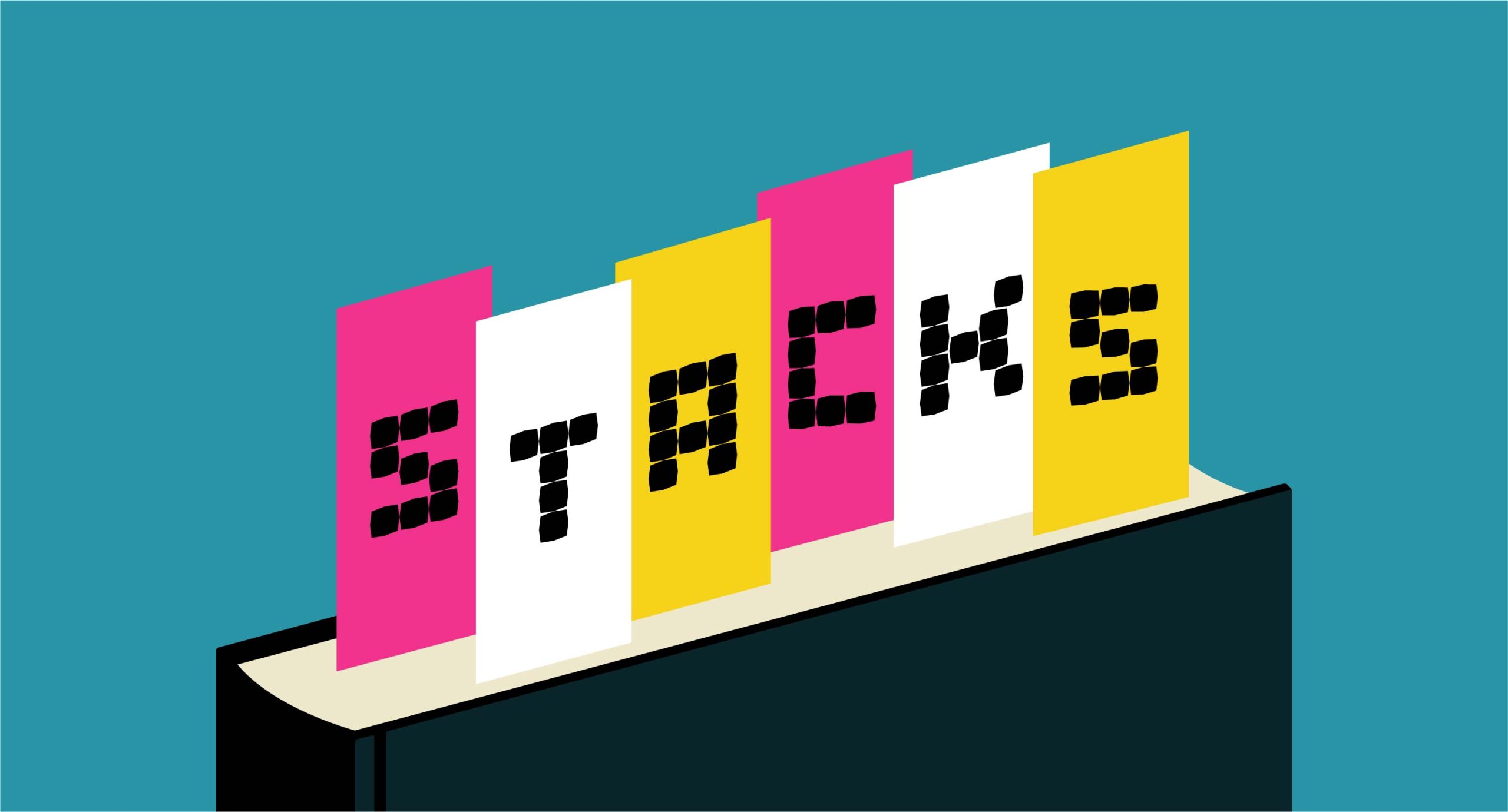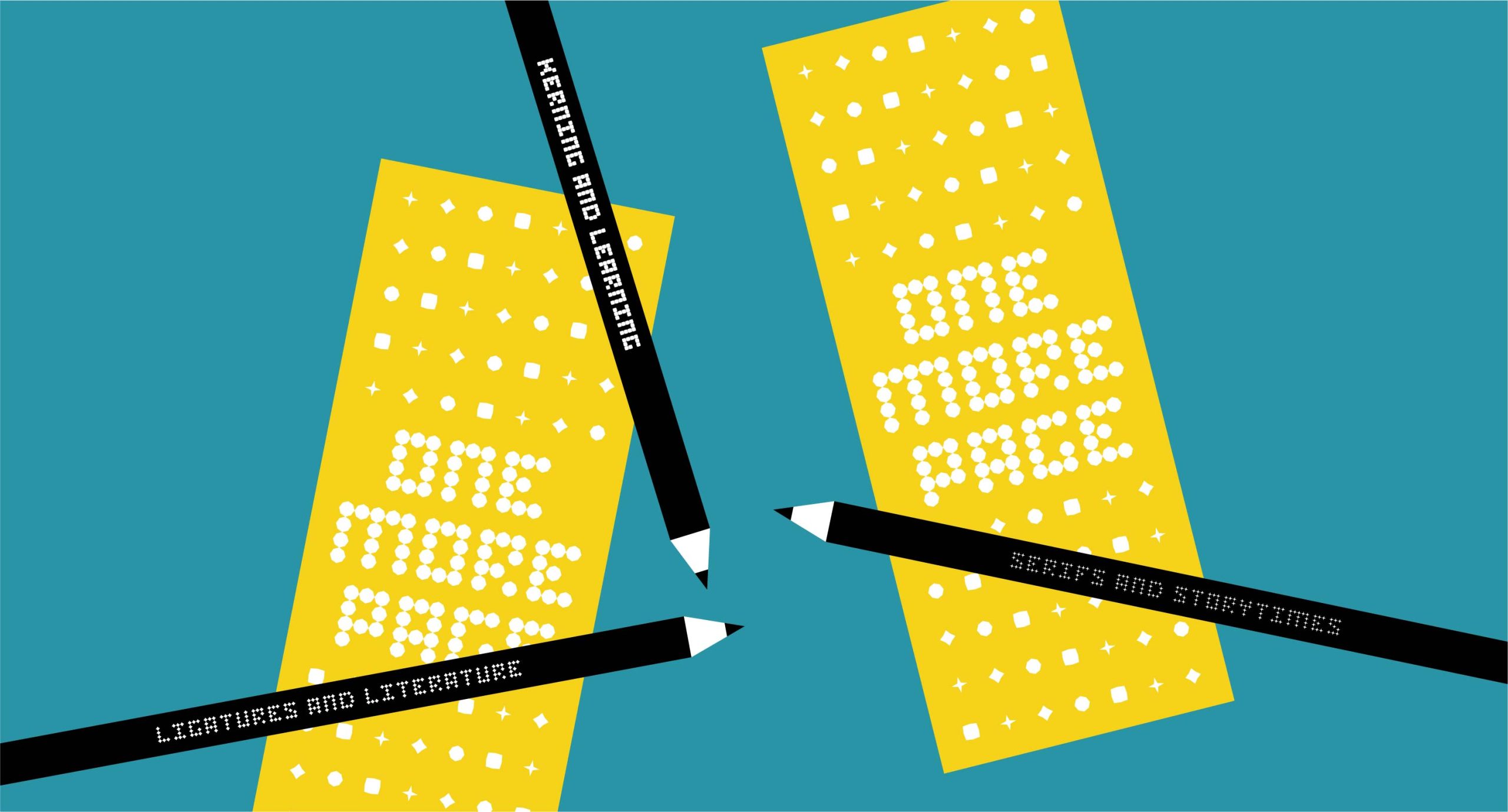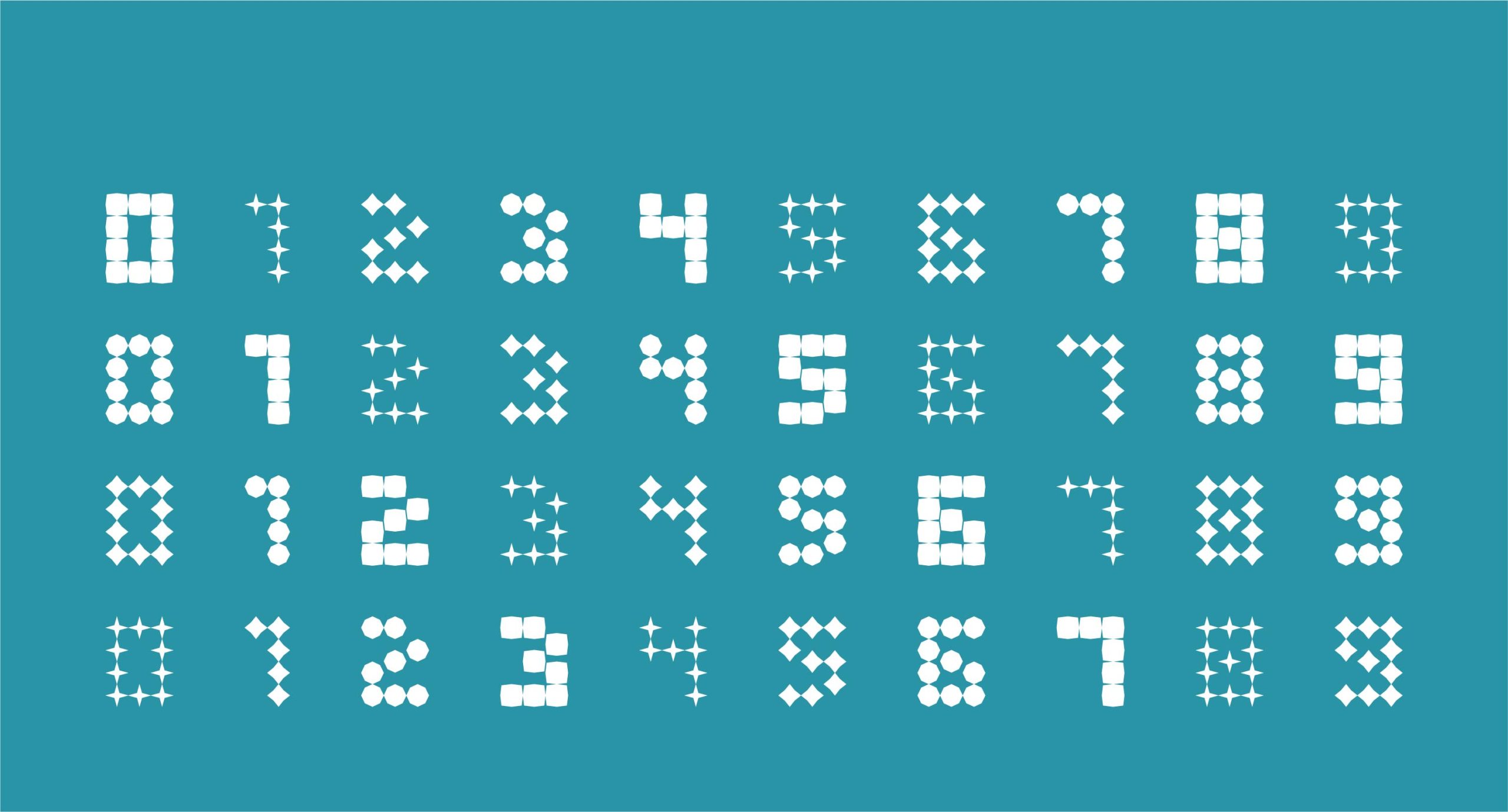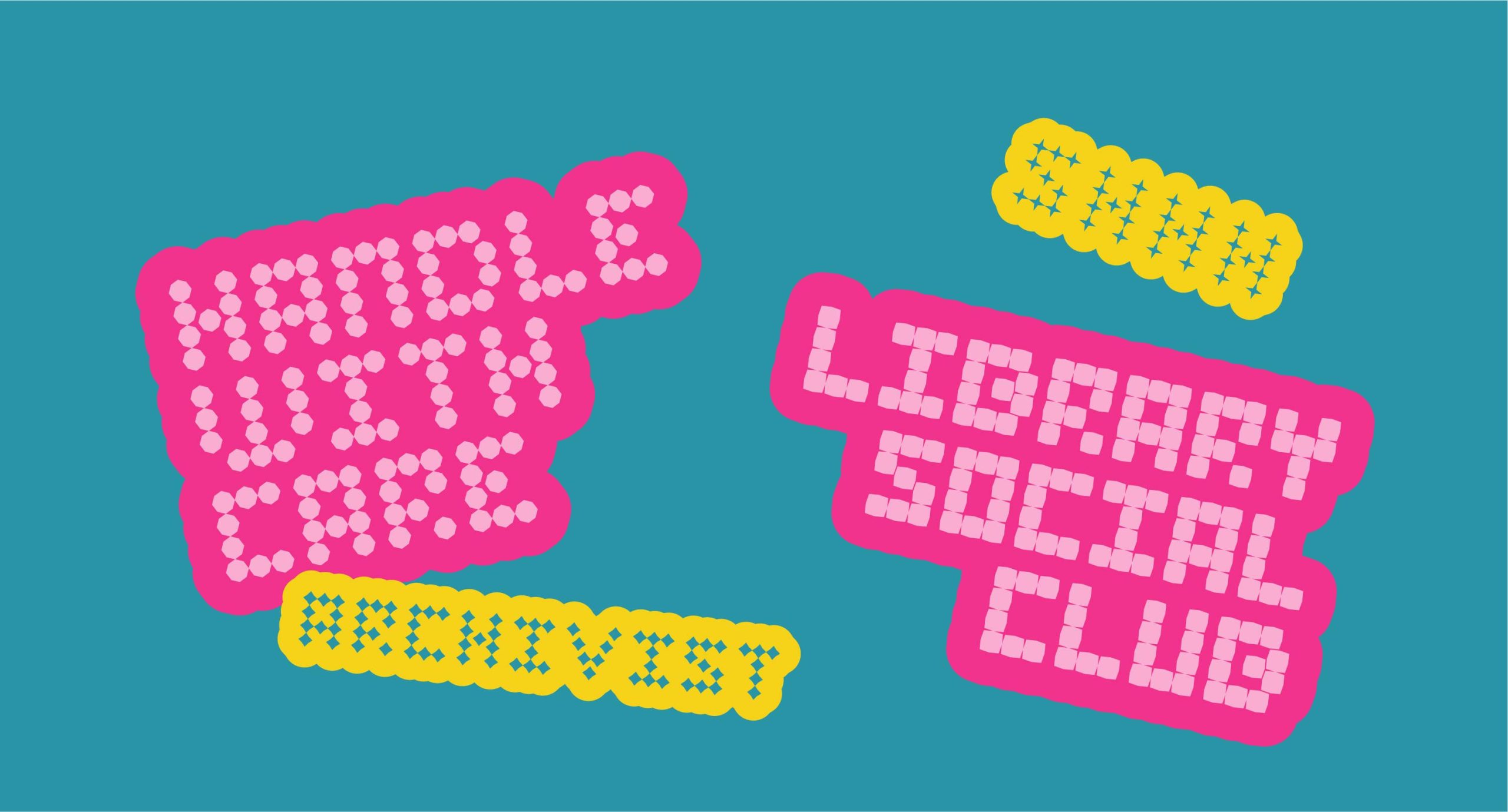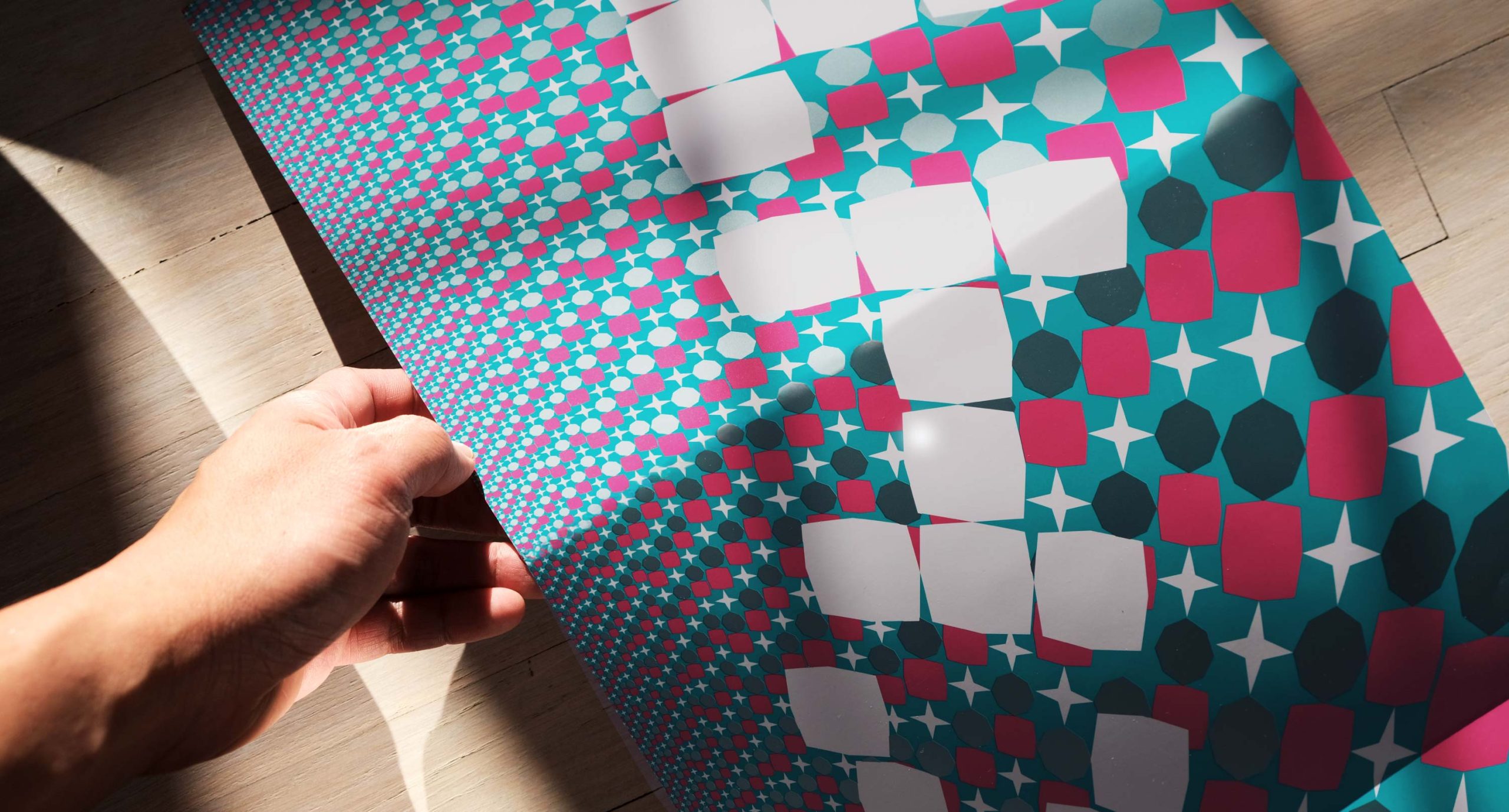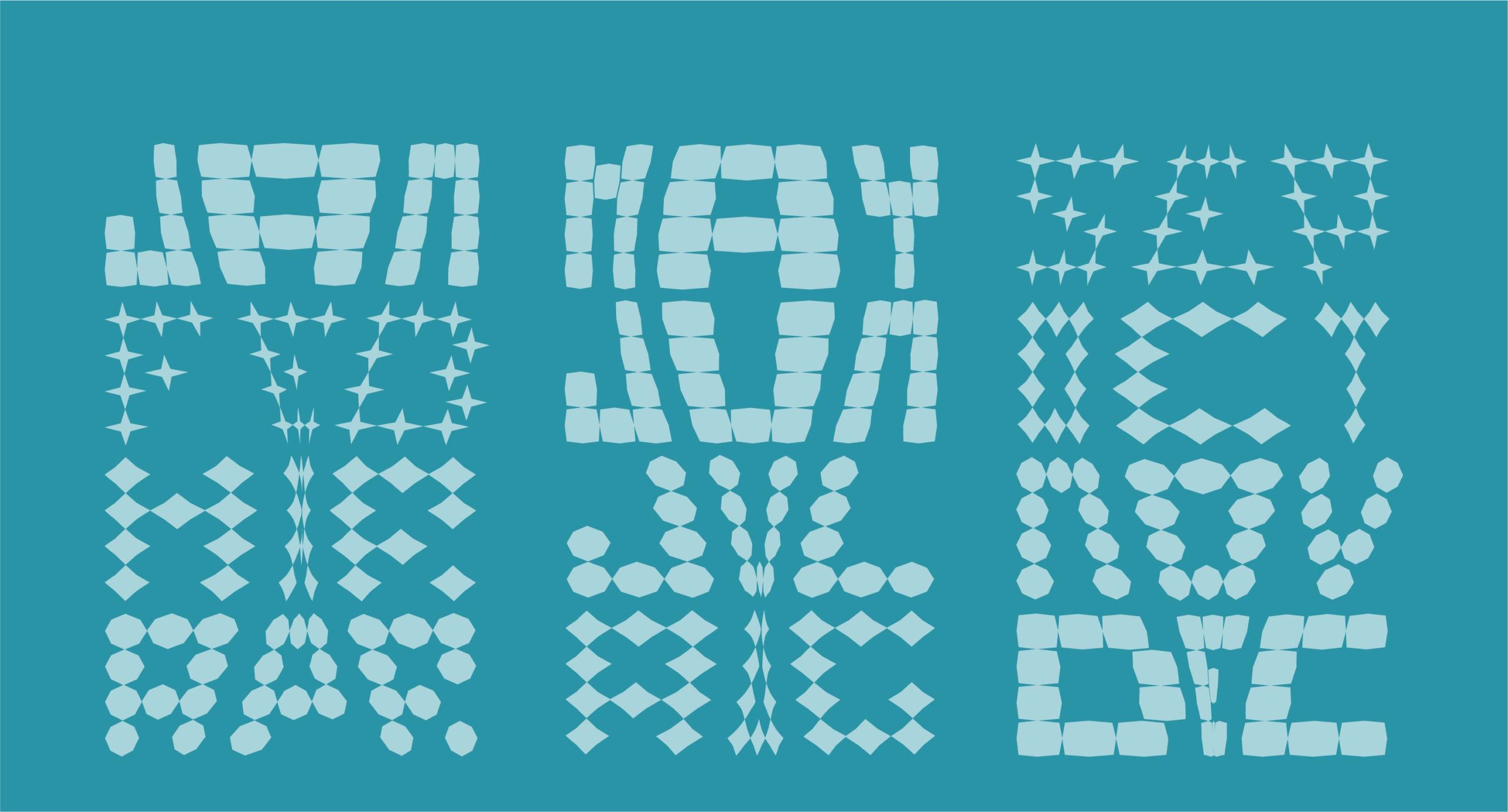
Stacks
Styles
Stacks Star
Stacks Diamond
Stacks Octagon
Stacks Square
Stacks Pattern
Stacks Variable
Inspired by the geometric blocks of the Beinecke Rare Books and Manuscripts Library at Yale University, Stacks is a bold grid based, monospaced font. The bold pixel builds on the concept of history that many collective stories support a broader understanding of our present. The simplicity is deceptive but assertively decorative as a punchy display typeface.